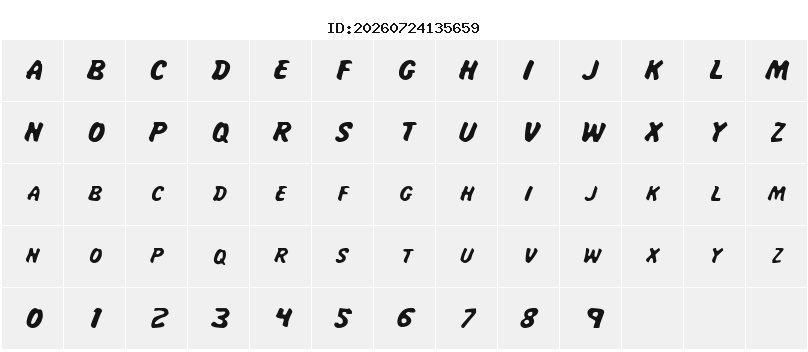
• Font Name: Miss Amanda Jones Ital
• Font Style: Ital
• Full Font Name: Miss Amanda Jones Ital
About Miss Amanda Jones Ital.ttf
Miss Amanda Jones Ital.ttf is a modern, elegant sans-serif font designed for ultimate readability and visual harmony. Perfect for branding, headlines, web design, and print materials.